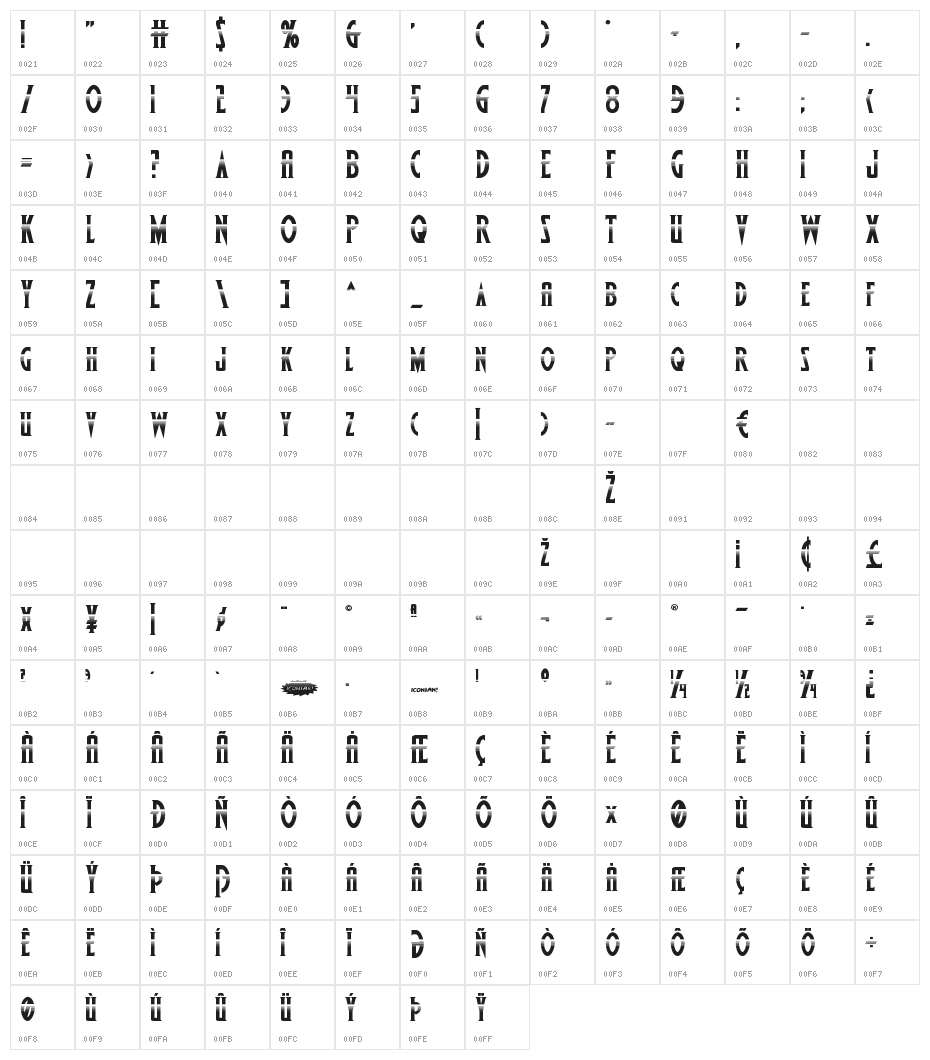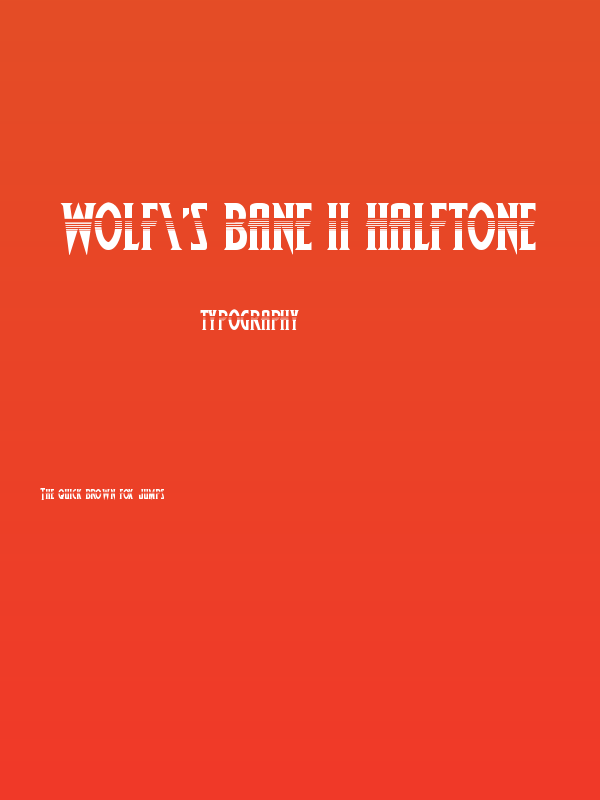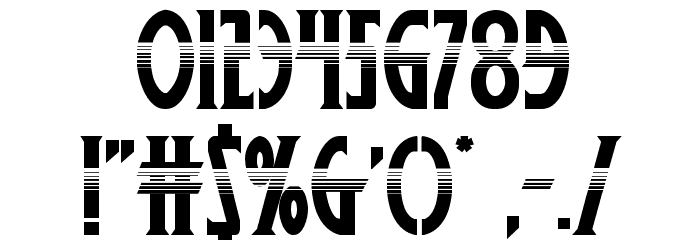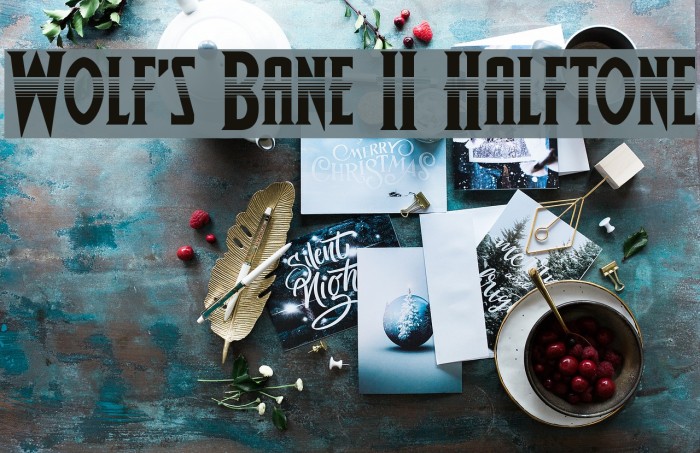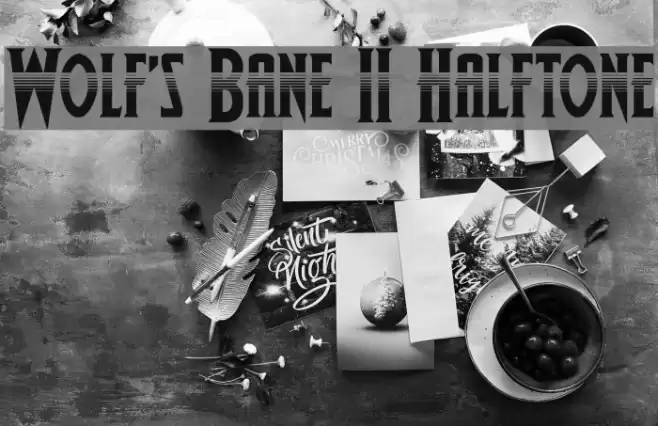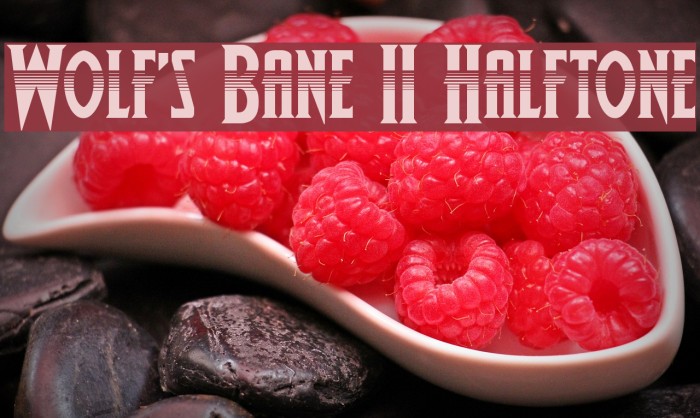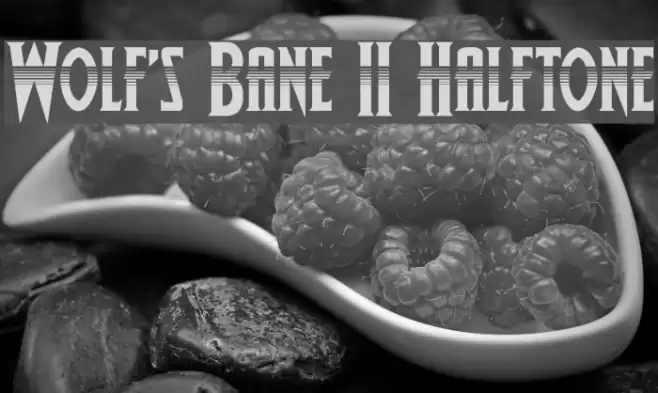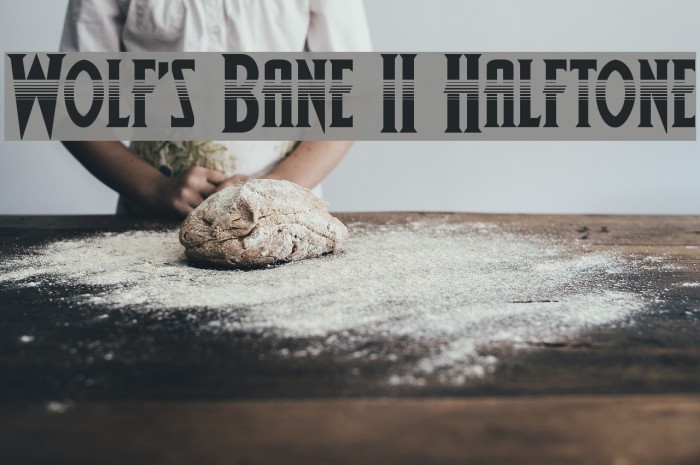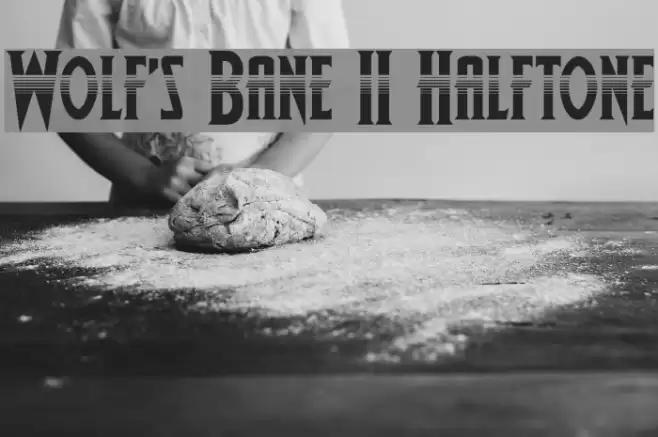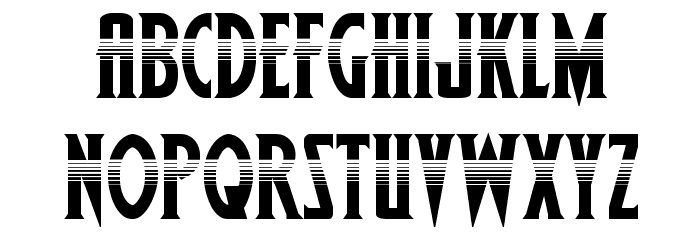
Wolf's Bane II Halftone Font
This font features a bold and striking design with a halftone effect that creates a unique visual texture. The uppercase and lowercase letters are characterized by strong vertical lines and a series of horizontal stripes that give the impression of movement and depth. The numbers and special characters follow the same stylistic approach, ensuring consistency across all glyphs. The overall appearance is dynamic and eye-catching, making it suitable for projects that require a bold statement. The halftone effect adds a layer of complexity, making it ideal for modern and edgy designs.